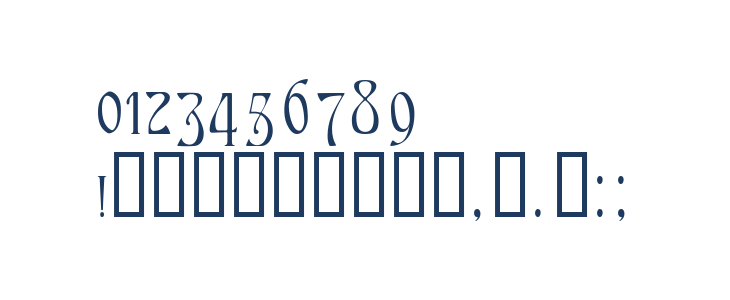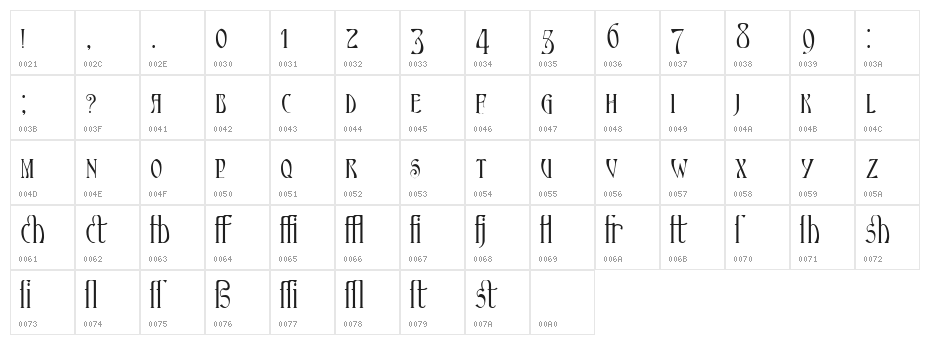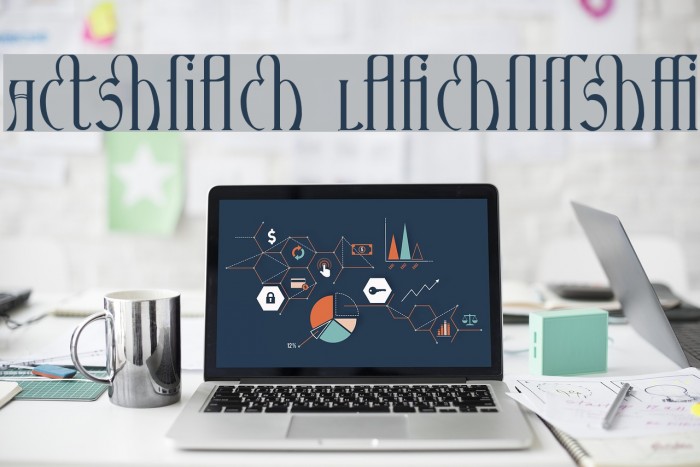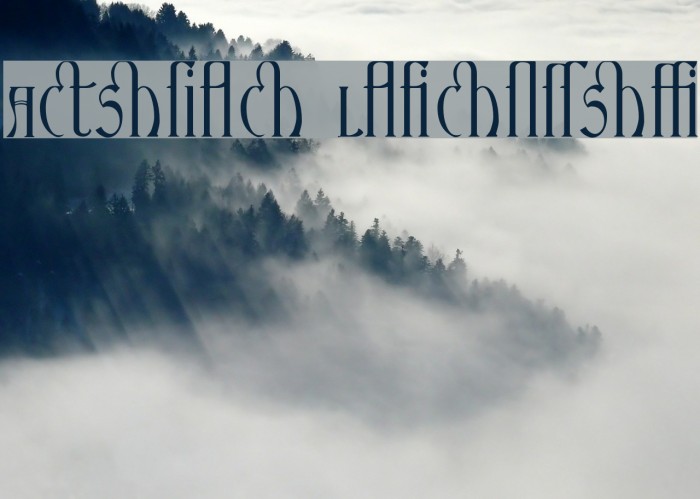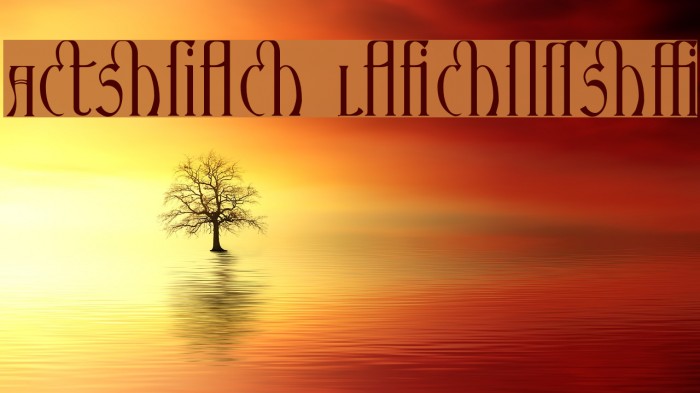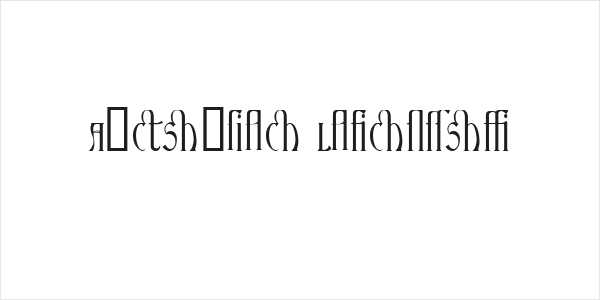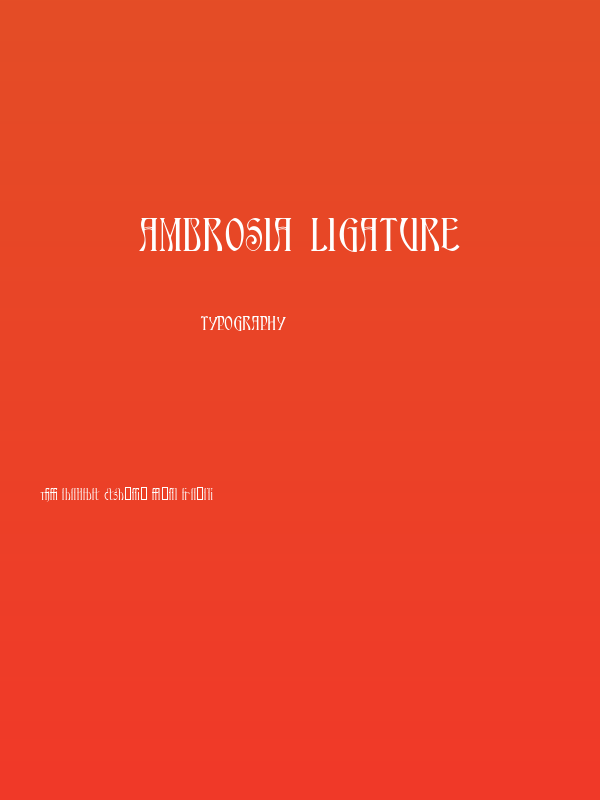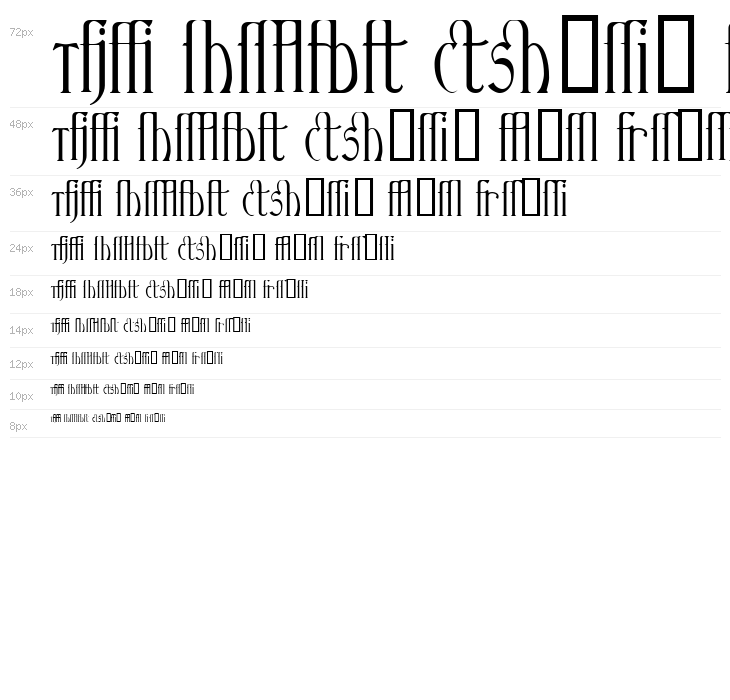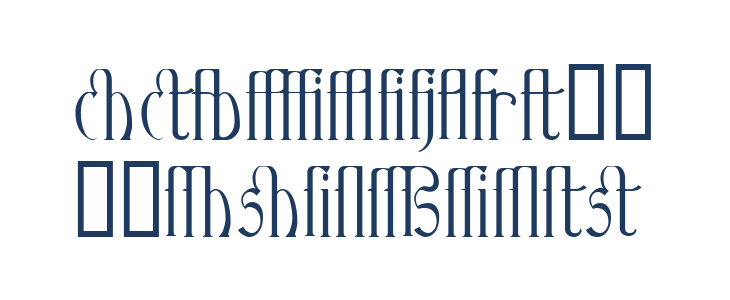
Ambrosia Ligature Font
Ambrosia Ligature Description
This font features a unique blend of elegance and artistic flair, characterized by its intricate ligatures and flowing curves. The uppercase letters exhibit a distinct, elongated form with sharp serifs, while the lowercase letters maintain a consistent style with a touch of whimsy. The numerals are designed with a similar aesthetic, ensuring a cohesive look across all characters. Special characters are crafted with the same attention to detail, adding to the font's overall charm. This font's design is both decorative and functional, making it suitable for a variety of creative applications.